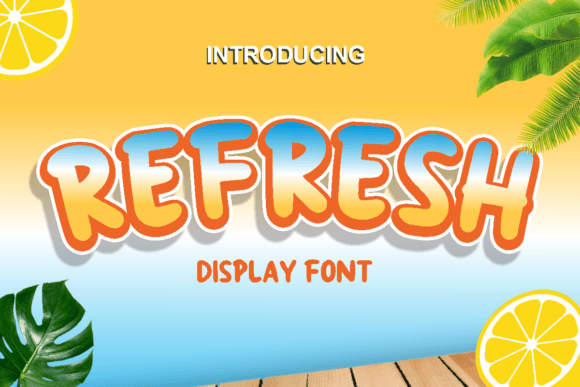
Welcome to Refresh Font, the display font family that ignites creativity and transforms your designs into extraordinary masterpieces! Crafted with passion by Riki.studio, Refresh is not just a font; it's an artistic expression that breathes life into your projects.
Immerse yourself in the world of fashion and let Refresh be the perfect addition to your website. Its bold and playful nature will captivate your audience, leaving them mesmerized by your designs. With Refresh, every word, every letter, and every page becomes an avenue for self-expression and artistic exploration.
Unleash your imagination and create stunning shirts that speak volumes about your unique style. Let Refresh guide your creativity as you design stickers that pop with personality and covers of books that transport readers to enchanting worlds. From social media posts that demand attention to invitations that exude charm, Refresh is your versatile companion, elevating your designs to new heights.
Refresh is not just a font; it's an experience, a journey into the extraordinary. Let your fingers dance across the keyboard as you type with Refresh, feeling the energy of its characters surge through you. Embrace the beauty of uniqueness and let your designs shine with a brilliance that reflects your individuality.
Don't settle for ordinary fonts. Choose Refresh, and let your imagination run wild. With its captivating aura and endless possibilities, Refresh is the font that will transform your creative vision into reality. Step into the world of design excellence and let Refresh be your constant companion.